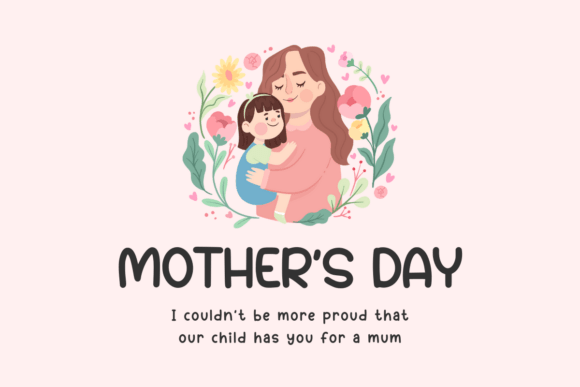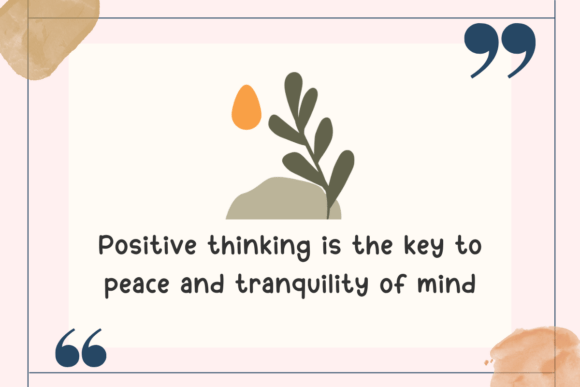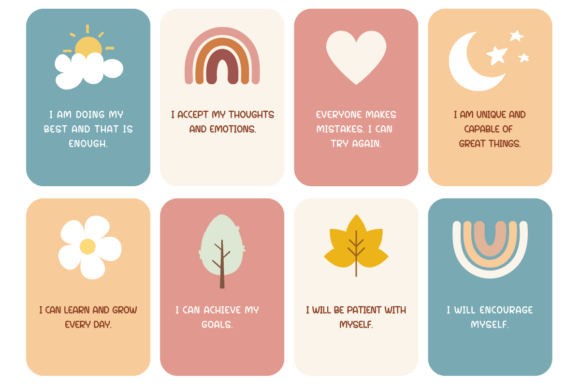
Introduction to Plannerschool Font
Planner School handwritten font radiates playful charm with its smooth, rounded edges and bold, bubbly style, making it perfect for cheerful, youthful designs.
Its clean yet friendly letterforms create a balance between readability and personality, ideal for planners, journals, stickers, kids’ products, social media graphics, and branding that needs a cute and approachable vibe With its fun, modern aesthetic, Planner School font easily adapts to colorful, creative layouts while maintaining a consistent and polished look, ensuring every project feels lively and full of character.
Key Features of Plannerschool Font
Why Choose Plannerschool Font?
Plannerschool Font offers exceptional quality and versatility, making it a valuable addition to your design toolkit. Whether you’re creating for personal projects or commercial use, Plannerschool Font delivers professional results.